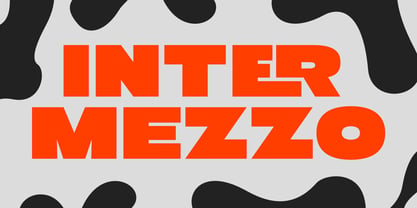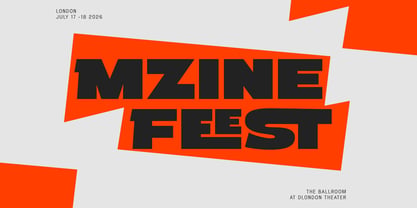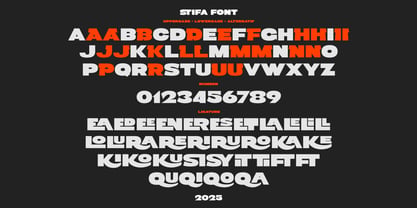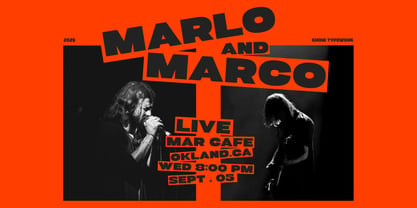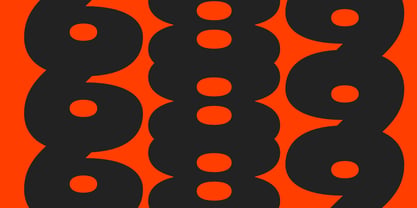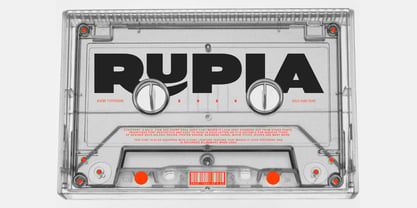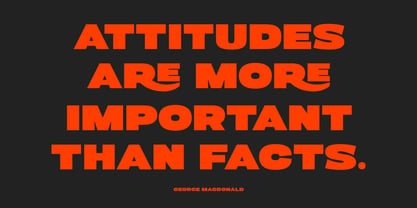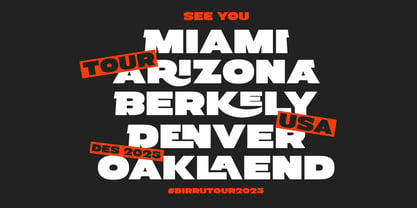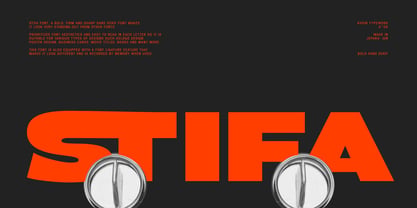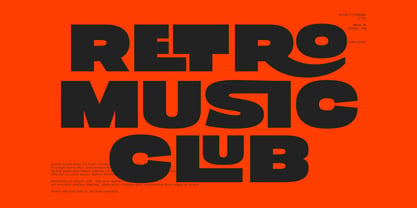
Stifa
by Khoir
The Stifa Font Family was designed by Muhammad Romzul Khoir and published by Khoir. Stifa contains 1 styles. More about this family
STIFA font, a bold, bold, and sharp sans serif font, stands out from the crowd. This font prioritizes aesthetics and readability, making it suitable for a variety of designs, including logos, posters, business cards, movie titles, books, and more.
This font also features ligatures and font alternatives to enhance or emphasize your designs.
Designers: Muhammad Romzul Khoir
Foundry: Khoir